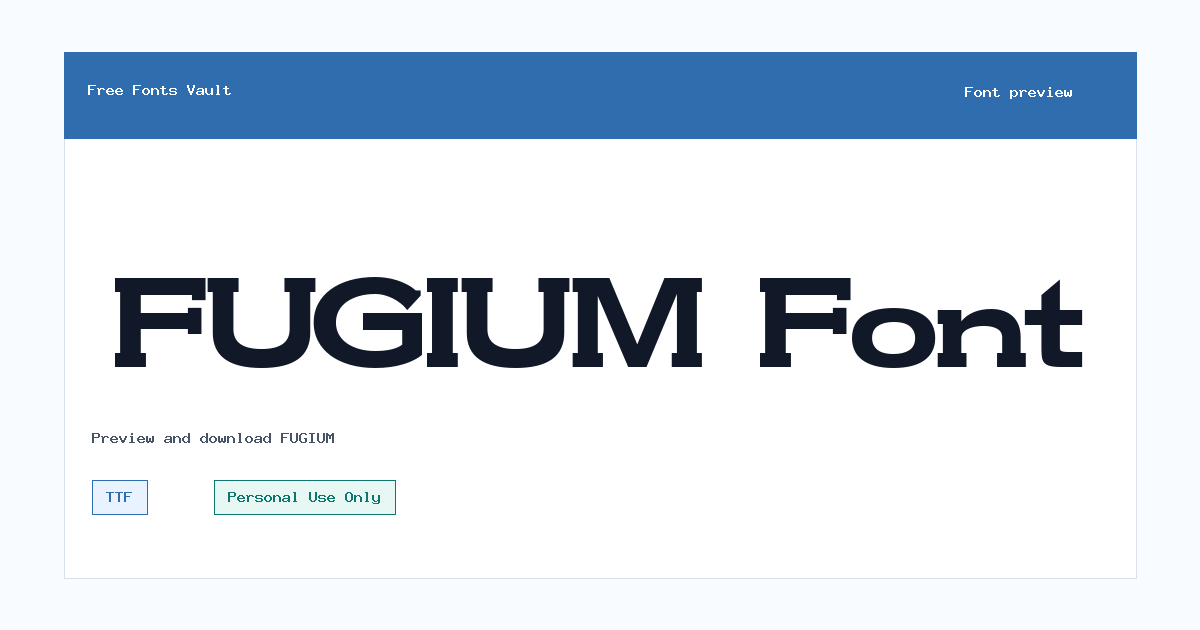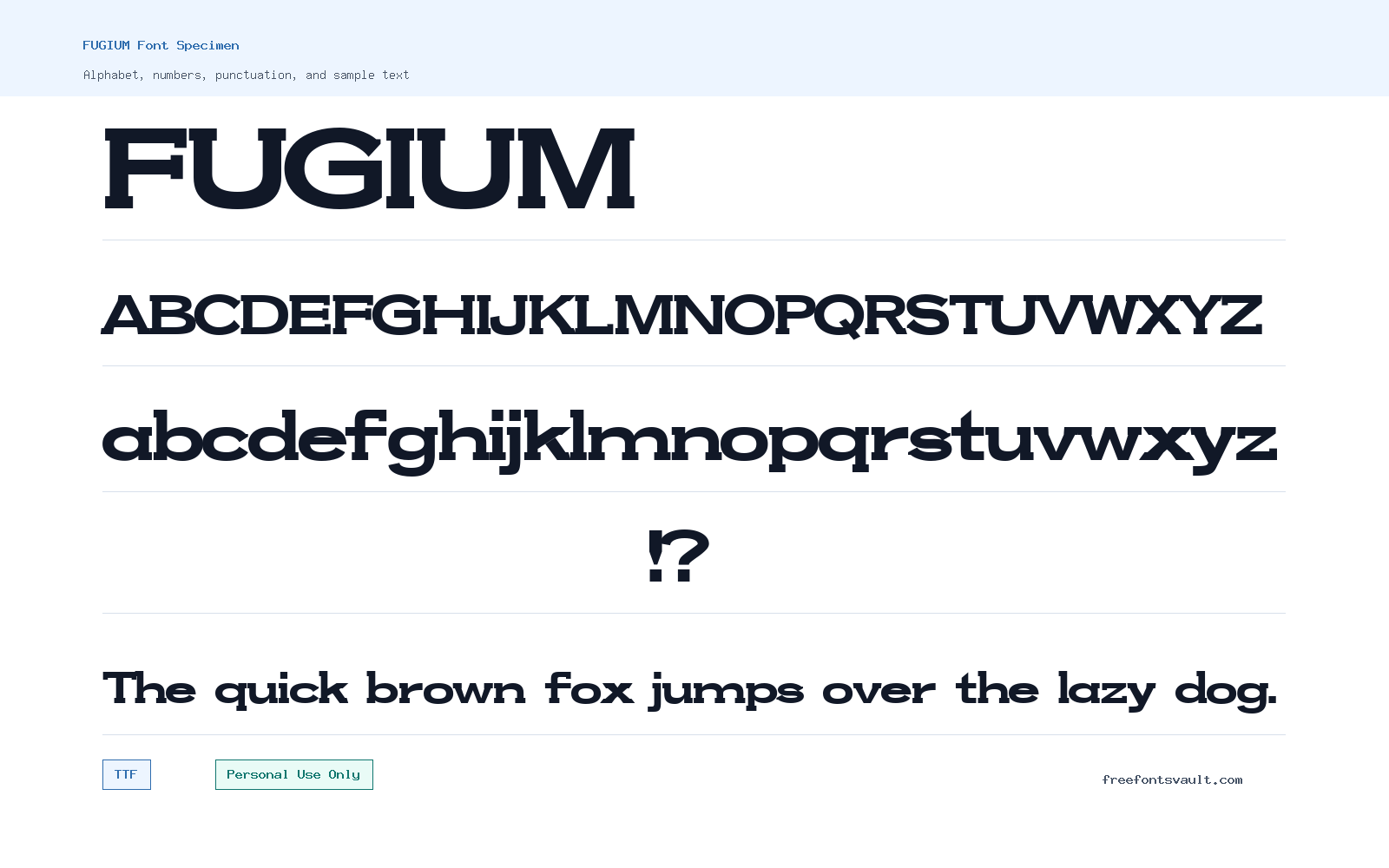
FUGIUM
FUGIUM font.
FUGIUM is a personal-use font with a slab serif direction, suited to visitors who want a strong display face for previewing titles, logo ideas, posters, and graphic layouts before deciding whether it fits a project.
About FUGIUM
FUGIUM works best when you treat it as a display font rather than a long-reading text face. Its slab serif label suggests a heavier, more structured serif style, which usually performs well in short words, names, headings, and bold layout moments. Use the preview box to test the exact text you plan to design with, because display fonts can change character quickly depending on word length, letter combinations, and spacing. A short brand name, a poster headline, or a large web hero title will show the font more honestly than a generic sample sentence.
For logo work, FUGIUM can be useful at the sketch and concept stage, especially when you need a serif look with a firm, graphic presence. Try it in uppercase, title case, and lowercase if the preview supports those forms, then check how repeated letters, punctuation, and numbers behave. For posters and social graphics, give the letters enough room and avoid crowding the line with too many words. For web mockups, use it for headings or featured text, then pair it with a quiet sans serif or a readable text serif for paragraphs. Since only a regular TTF variant is identified, plan any bold, italic, or weight variation manually in the design rather than assuming a full family is available.
- Slab serif-style direction that is better suited to display text, short titles, and identity mockups than dense paragraphs.
- Single regular weight, which keeps the choice simple but limits built-in hierarchy options.
- Logo concepts and name studies where a firm serif display style is desired.
- Poster headlines, album-style graphics, event art, and large-format typography.
- Website hero headings, landing-page mockups, and editorial title treatments.
- Typography pairing tests with clean sans serifs, neutral body fonts, or restrained serif text faces.
What kind of font is FUGIUM?
FUGIUM is identified as a slab serif font. It is best approached as a display face for headings, logos, posters, and short pieces of text.
Does FUGIUM include multiple weights?
Only a regular 400-weight variant is identified. If you need a larger type system with bold, italic, or multiple weights, pair it with another family that covers those roles.
What fonts pair well with FUGIUM?
Try a clean sans serif for body text and interface details, or a simple text serif if you want a more editorial layout. Keep the companion font quieter so FUGIUM can carry the display role.
Is FUGIUM good for paragraphs?
It is better for short display text. For paragraphs, use a font designed for comfortable reading and save FUGIUM for titles, pull quotes, or accent words.